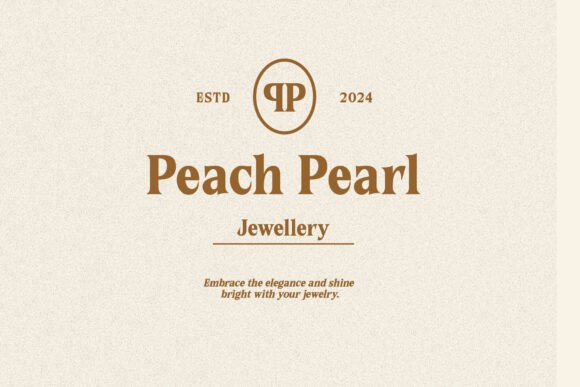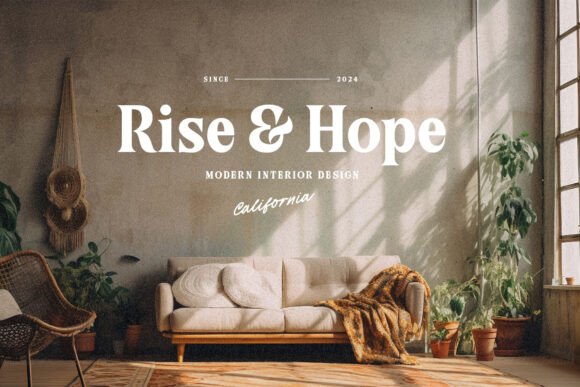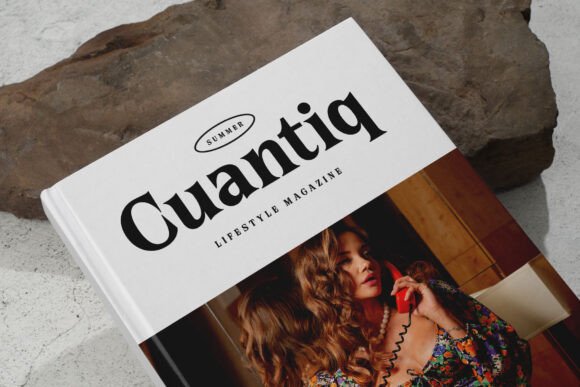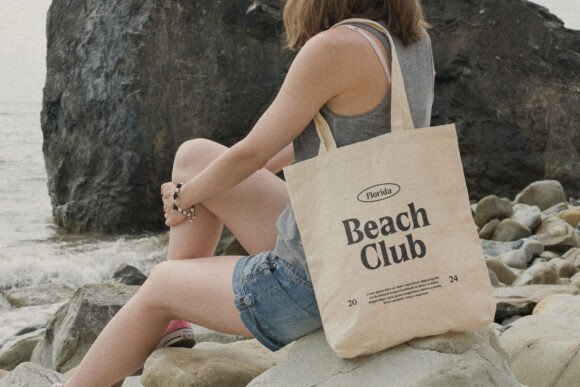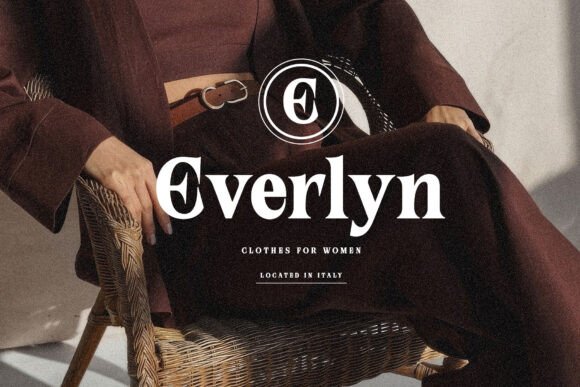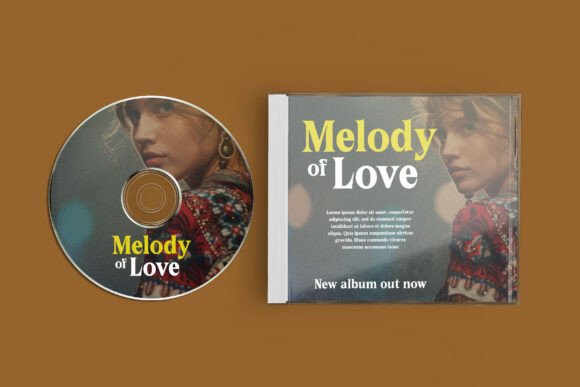
Gastey Font: Elevate Your Designs with Bold Serif Elegance
In the world of typography, fonts play a crucial role in conveying the tone and personality of a design. For designers and crafters looking to add a touch of nostalgia and sophistication to their creations, the Gastey font is an excellent choice. This bold serif font boasts a unique blend of vintage charm and prestigious elegance, making it an incredible asset to any font library.
The Characteristics of Gastey Font
Gastey is a bold serif font that exudes confidence and luxury. Its sturdy serifs and robust letterforms give it a commanding presence, making it perfect for headlines, titles, and other display text. The font’s classic design is reminiscent of traditional serif fonts, but with a modern twist that sets it apart from more generic fonts.
Nostalgic Charm and Timeless Elegance
One of the standout features of Gastey is its nostalgic charm. The font’s design is inspired by classic typography from the past, evoking memories of vintage posters, elegant invitations, and high-end branding. At the same time, Gastey also possesses a timeless elegance that ensures it will remain relevant for years to come. Whether you’re designing a retro-themed project or a modern luxury brand, Gastey is a versatile font that can adapt to any style or aesthetic.
Versatility and Pairing Options
Gastey’s versatility is another one of its key strengths. This font can be used for a wide range of projects, from editorial design and advertising to packaging and branding. It pairs well with a variety of font styles, including sans-serif fonts, script fonts, and other serif fonts. For example, pairing Gastey with a clean sans-serif font like Open Sans or Lato can create a striking contrast that adds visual interest to your design.
Why Gastey Font is a Must-Have for Designers and Crafters
So, why should designers and crafters add Gastey to their font library? Here are just a few reasons:
- Elegance and sophistication: Gastey’s bold serif design and classic charm make it perfect for projects that require a touch of luxury and sophistication.
- Versatility: Gastey can be used for a wide range of projects, from editorial design to branding and packaging.
- Nostalgic appeal: The font’s vintage-inspired design adds a unique touch to any project, making it perfect for retro-themed designs or projects that require a sense of history.
- Easy to read: Despite its bold design, Gastey is easy to read, even at smaller sizes.
Tips for Using Gastey Font Effectively
To get the most out of Gastey, here are a few tips for using it effectively:
- Use it for headlines and titles: Gastey’s bold design makes it perfect for headlines and titles, where it can add a touch of elegance and sophistication.
- Experiment with font sizes: Gastey looks great at a range of font sizes, from large display text to smaller body text.
- Pair it with complementary fonts: Pair Gastey with complementary fonts to create a striking contrast that adds visual interest to your design.
In conclusion, the Gastey font is a bold serif font with nostalgic charm and prestigious elegance. Its versatility, elegance, and nostalgic appeal make it an incredible asset to any font library. Whether you’re a designer or crafter looking to add a touch of sophistication to your projects, Gastey is a must-have font that can elevate any creation.